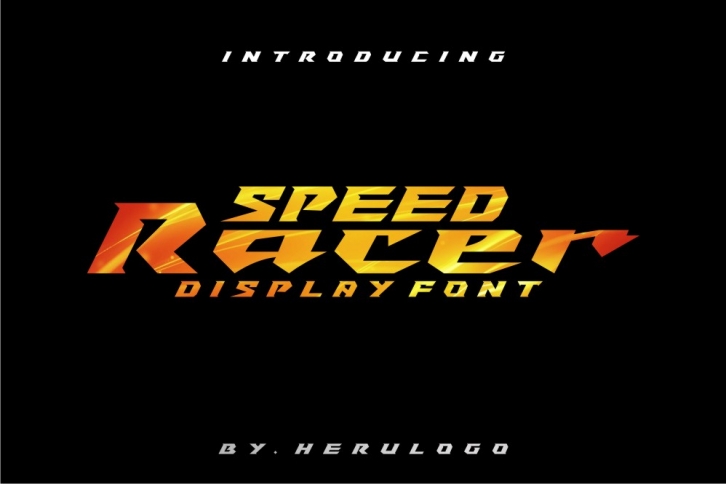
Speed Racer is a beautiful font that was designed by HERULOGO. It's a great choice for designers and creatives who need such a font. It was released on September 16, 2019 and the file size is 1.10 MB. Speed Racer may give a more youthful, expressive and casual look to your project. It is a very beautiful, refined, elegant, and high-quality font.